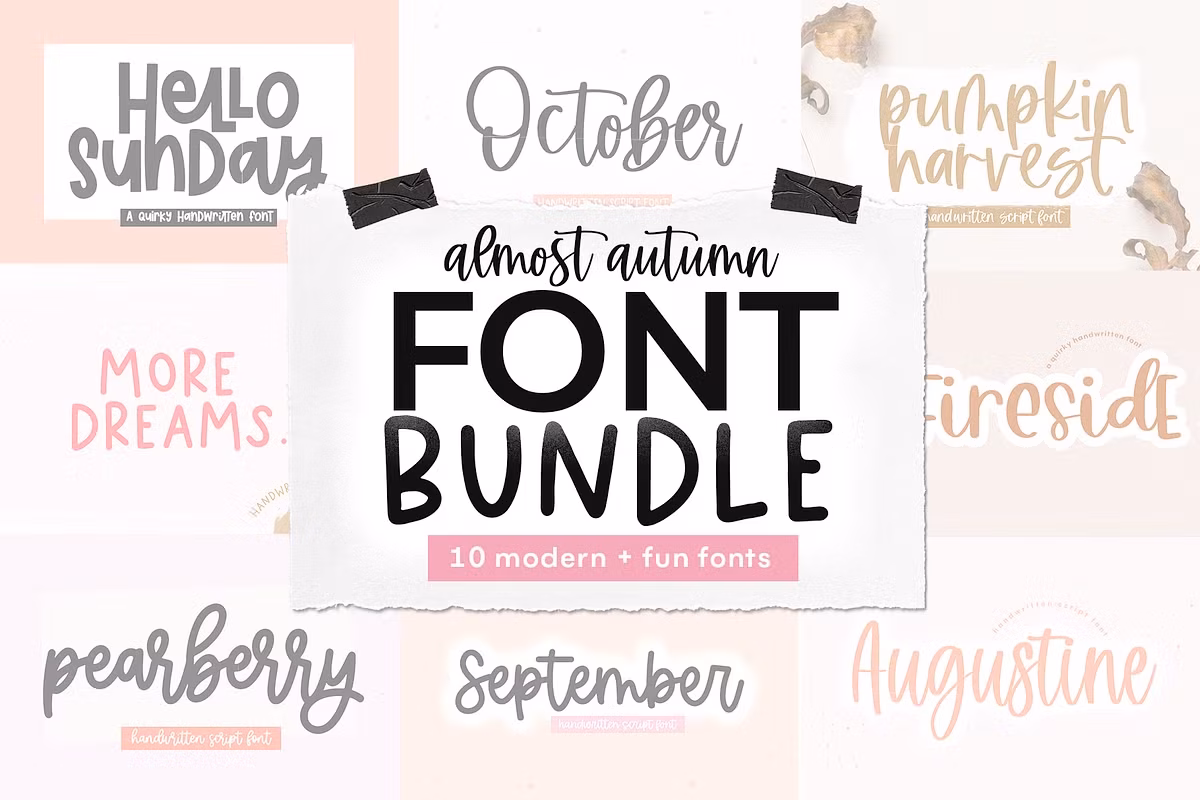
Please note, you must purchase this font for commercial use. However, you can easily download Font Bundle - Almost Autumn Font Free Download for personal and testing purposes. Font Bundle - Almost Autumn Font is a charming and elegant typeface, perfect for seasonal designs, cozy branding, invitations, and more. With its unique style that combines autumn-inspired elements, this font captures the essence of fall, evoking warmth and nostalgia. Whether you're working on a project related to autumn celebrations, invitations, or nature-themed designs, Font Bundle - Almost Autumn Font Free Download is an excellent choice to add a touch of elegance and seasonal appeal. Designers love the versatility and creativity this font brings, making it suitable for both print and digital applications. Take advantage of Font Bundle - Almost Autumn Font Free Download today and explore how it can enhance your designs before deciding on a commercial license.